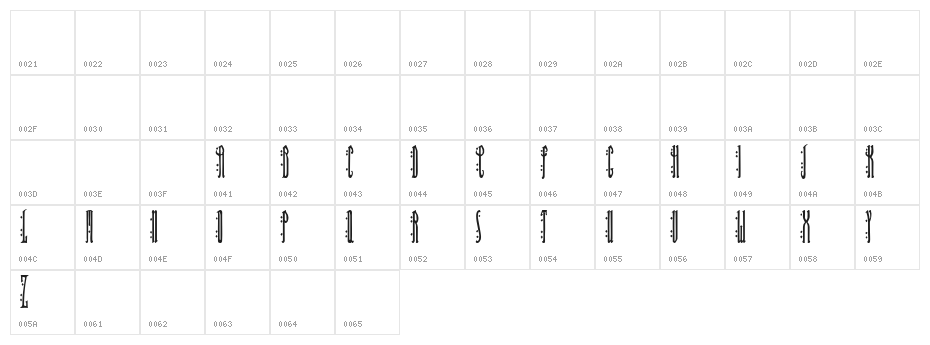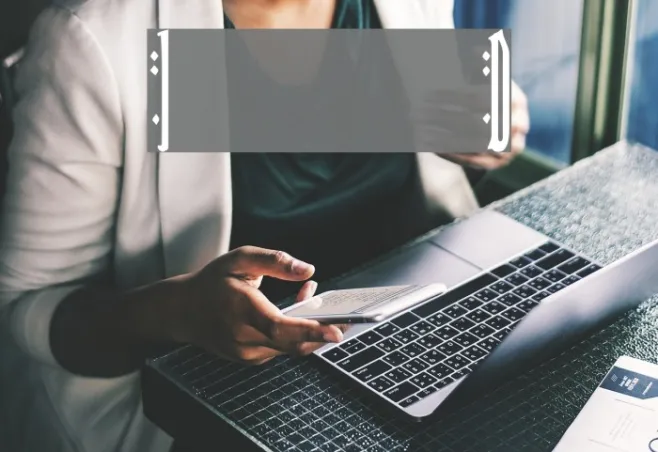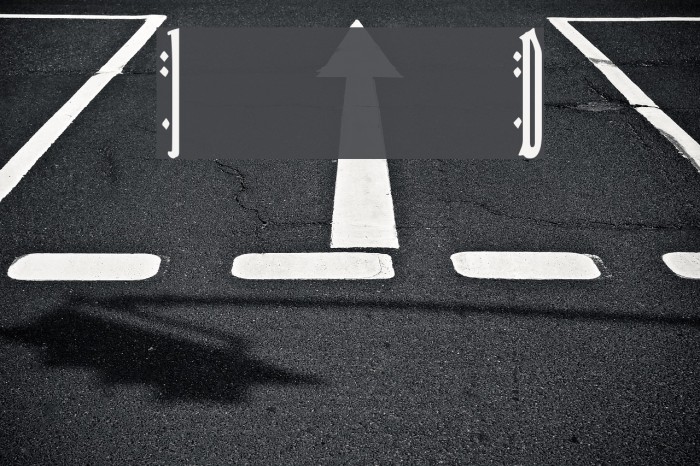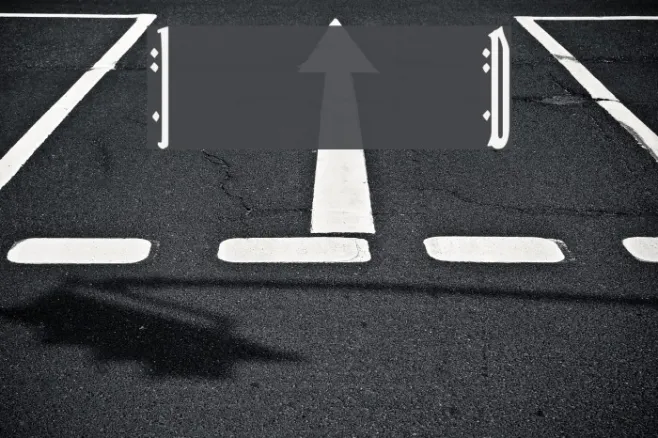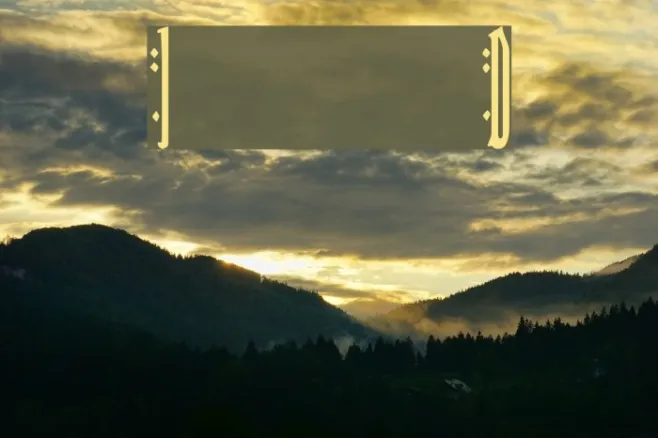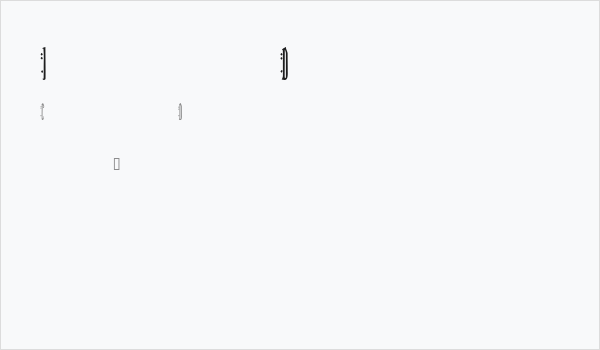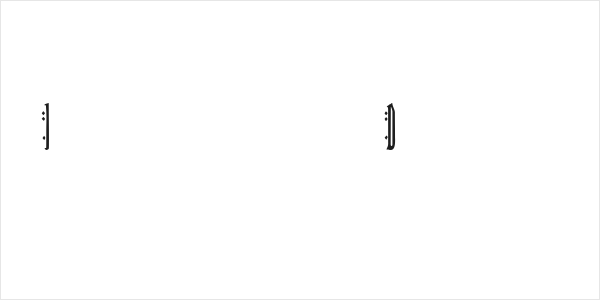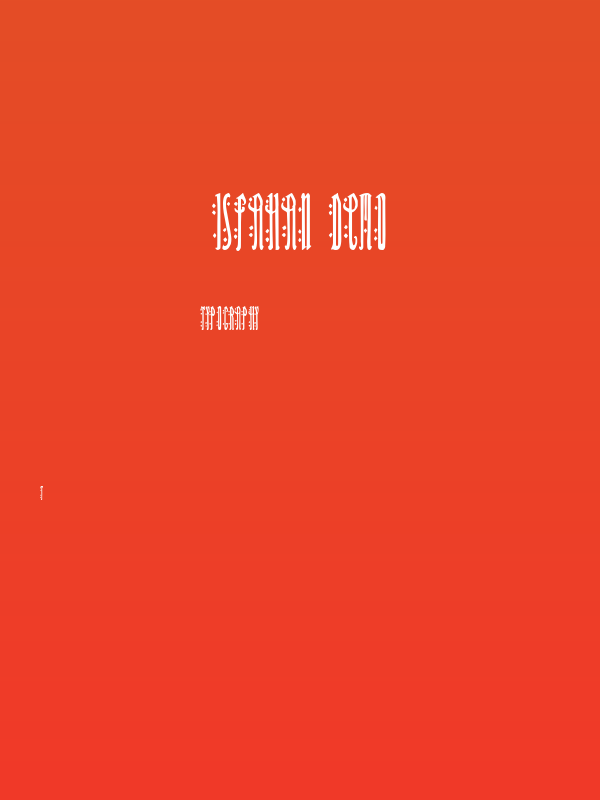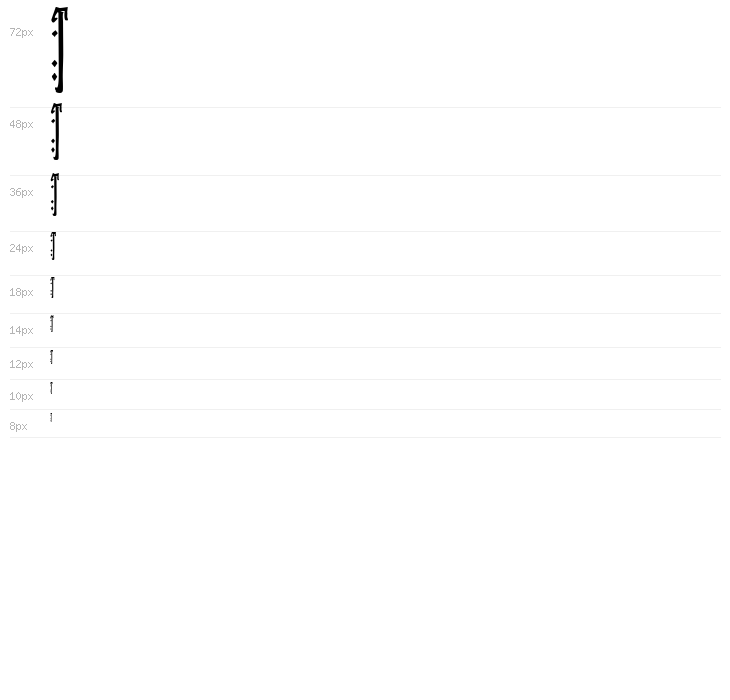
Isfahan Demo Font
Isfahan Demo Description
This font features a highly decorative and intricate design, reminiscent of traditional Middle Eastern calligraphy. The characters are elongated and adorned with ornamental dots and flourishes, creating a sense of elegance and sophistication. The vertical emphasis and unique styling make it stand out, capturing attention with its artistic flair. Each letter is crafted with precision, showcasing a blend of cultural heritage and modern design elements. The font's ornate nature makes it suitable for projects that require a touch of luxury and historical depth.
| Use Case | Logos, Headlines, Decorative purposes |
| Proposed Projects | Ideal for use in cultural event posters, luxury brand logos, artistic book covers, and decorative invitations. |